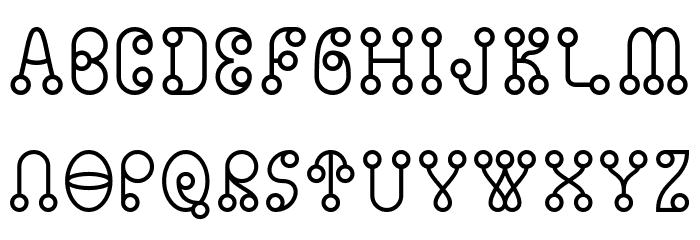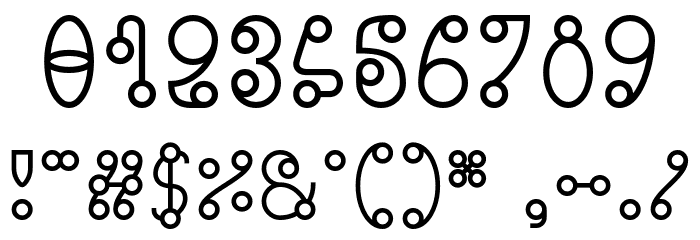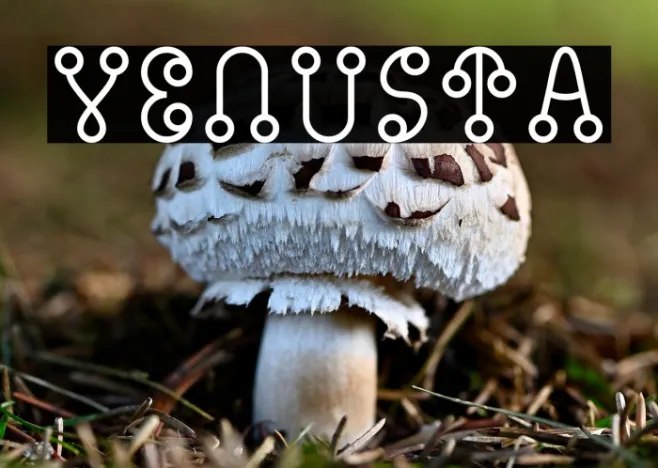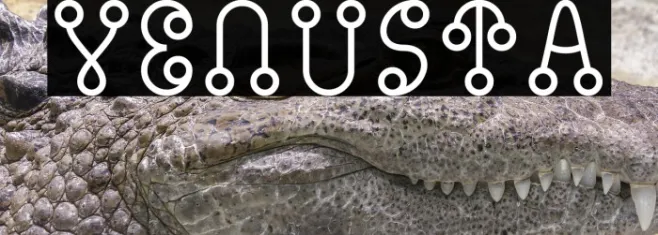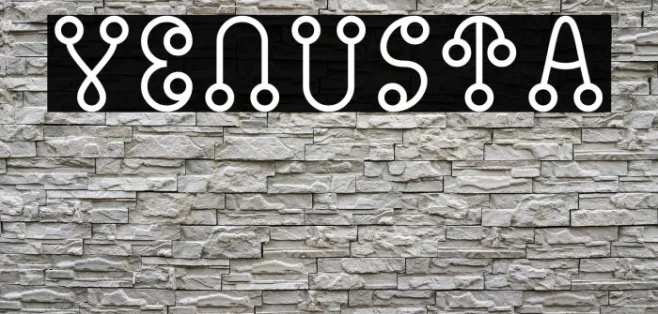
Venusta Font
This font features a unique and playful design with circular embellishments at the ends of each stroke, creating a whimsical and decorative appearance. The characters are bold and rounded, with a consistent thickness throughout, giving it a cohesive look. The uppercase and lowercase letters maintain a similar style, with the lowercase being slightly smaller but equally ornate. Numbers and special characters follow the same design principles, ensuring uniformity across all elements. This font is highly decorative, making it suitable for creative and artistic projects where a distinctive and eye-catching typeface is desired.
A playful, decorative font with circular embellishments and consistent bold strokes.
- Font: Venusta
- Proposed Projects: Ideal for children's books, playful branding, creative posters, and artistic invitations.